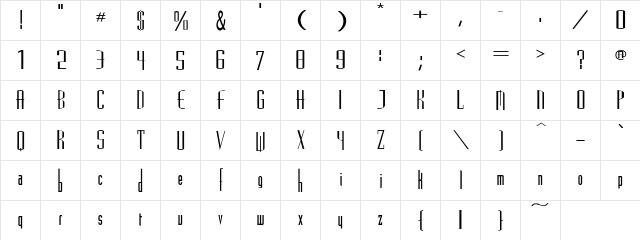
Madrid2Exp Regular Font Preview
Madrid2Exp Regular
Design Context for Madrid2Exp Typeface
Madrid2Exp is a composed and adaptable typeface that performs quietly and consistently across a wide range of design contexts.
Pro Tip: Use Madrid2Exp in both headline and body roles to test its range before committing to a single application.